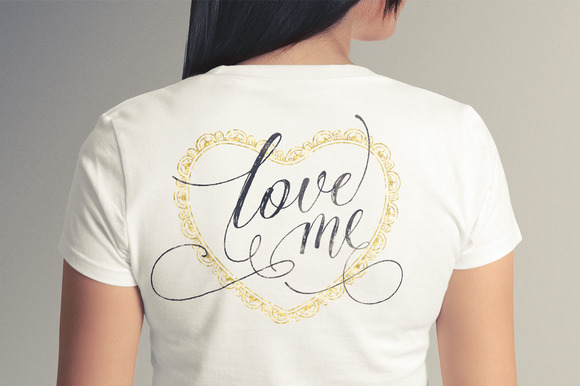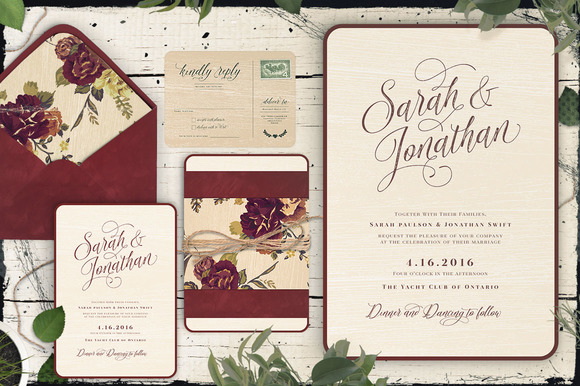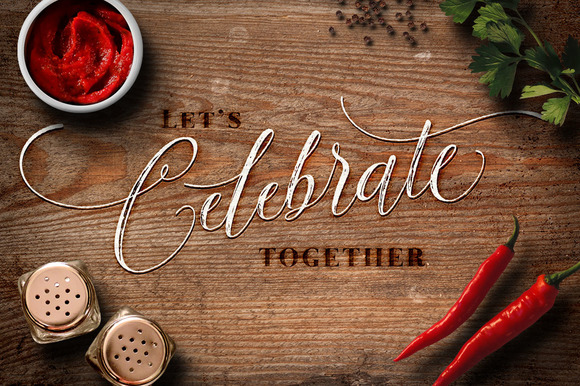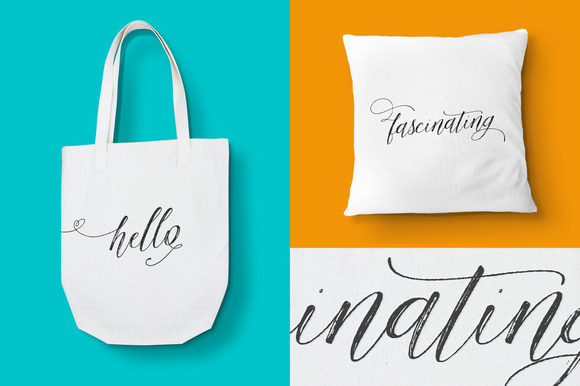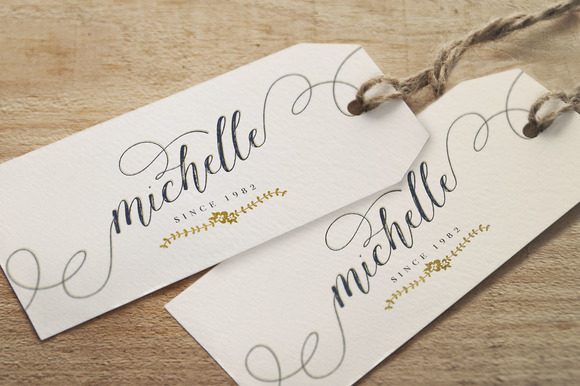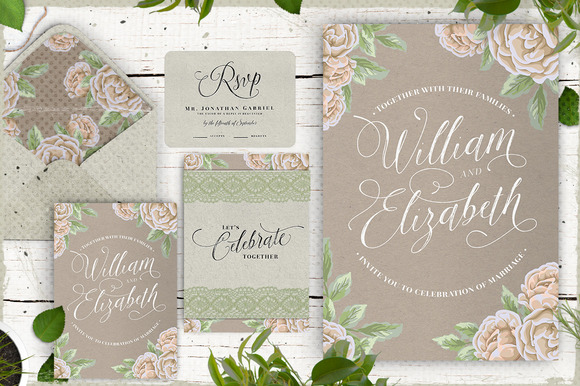
Introduction to Amelia Script – Draft Version Font
The beautiful Amelia Script font comes packed with lots of glyphs and swashes.
Amelia offers so much variety that you will never run out of options You will be able to create something unique each time you use it.